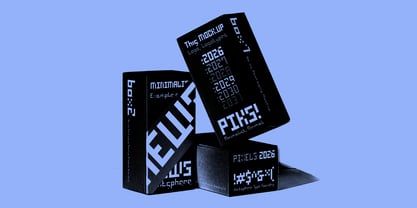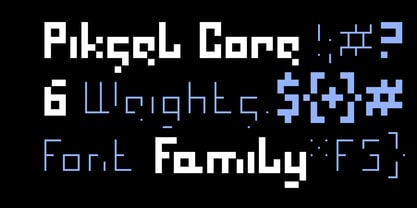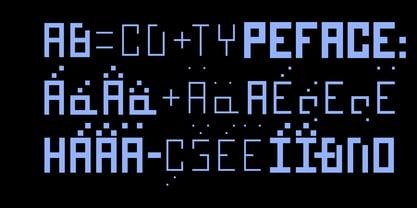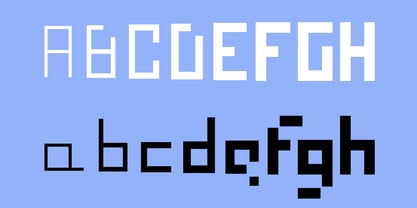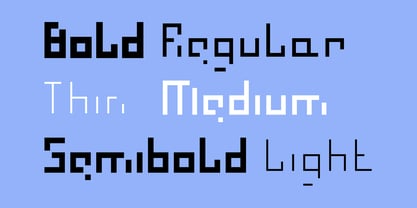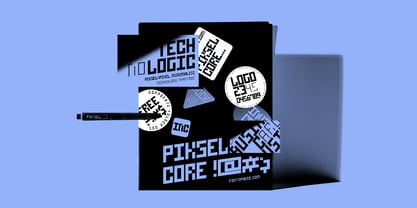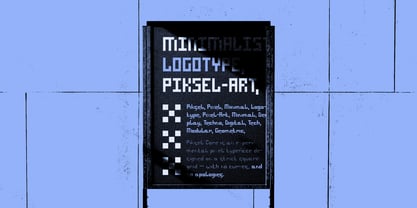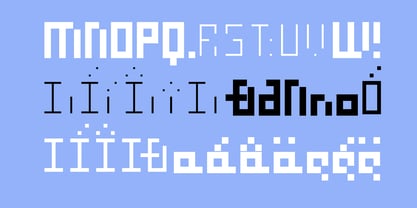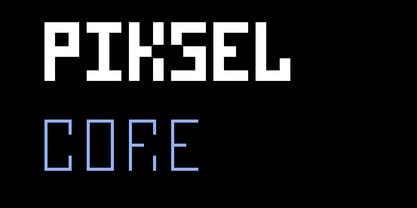
Piksel Core
Die Schriftfamilie Piksel Core wurde von Bartosz Panek entworfen und von Fontsphere veröffentlicht. Piksel Core enthält 6 Stile und Familienpaketoptionen. Mehr über diese Familie
Piksel Core is a modular pixel type family built on a strict square grid — no curves, no diagonals, just clear structure and sharp geometry. It was designed as a calmer, more functional counterpart to Piksel Core Mad, focusing on balance, consistency, and readability. All glyphs are constructed from precise pixel units, with carefully considered spacing and proportions. The family includes both uppercase and lowercase letters, which is still relatively rare in pixel typefaces and makes Piksel Core more flexible for everyday use. With six weights ranging from 200 to 700, Piksel Core works well across layouts, interfaces, and experimental typography, staying true to pixel logic while offering enough range for clear typographic hierarchy.